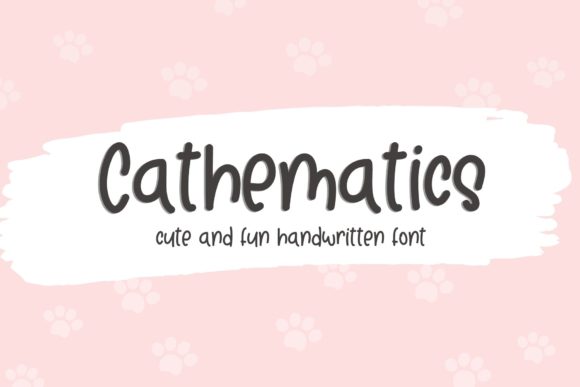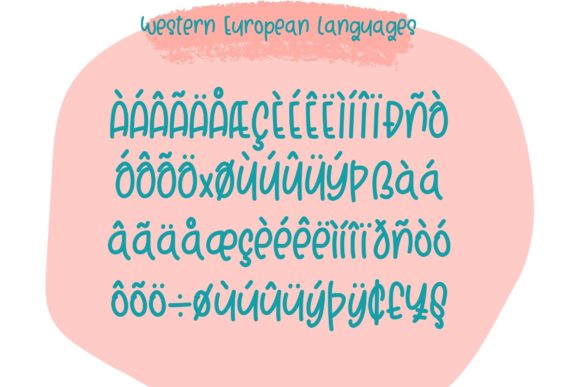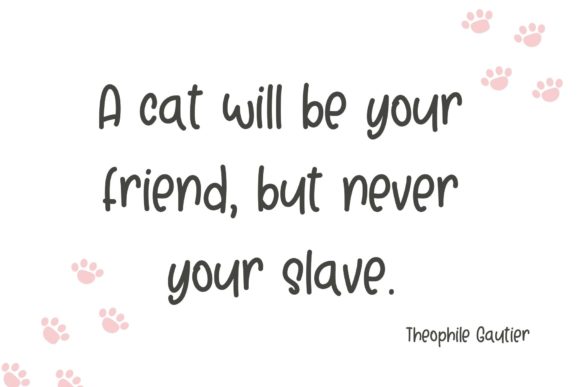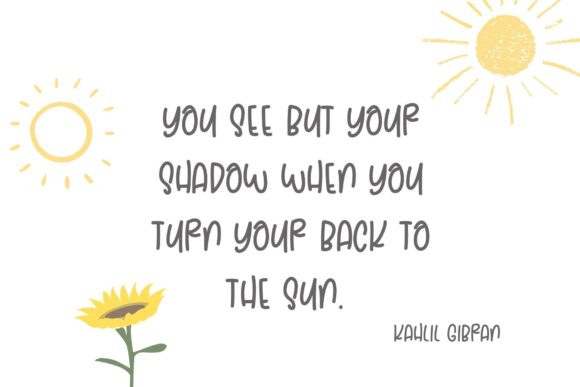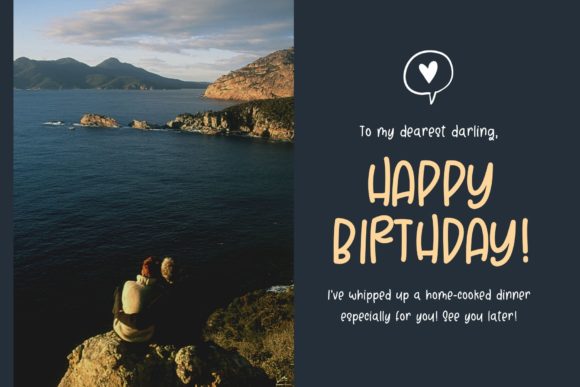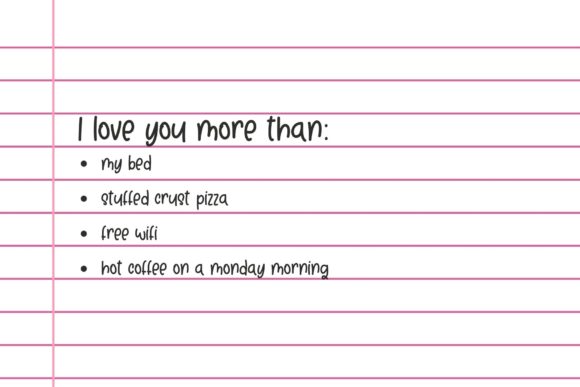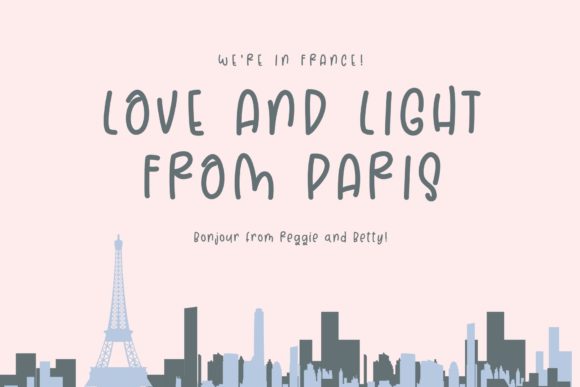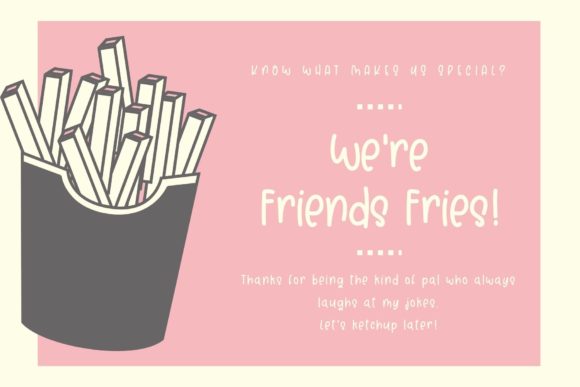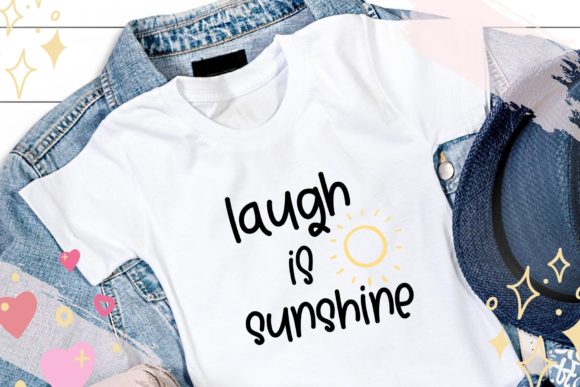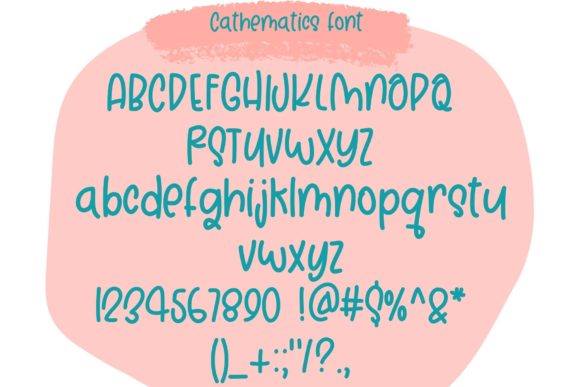
Cathematics Font
Introducing “Cathematics,” a cute and slightly quirky handwritten font that brings a delightful charm to any design project. With its versatility and unique appeal, “Cathematics” is the perfect choice to make your creative ideas stand out. Let’s explore the features that make “Cathematics” a dazzling font for all your design ventures:
Cute and Quirky: “Cathematics” exudes a playful and adorable vibe, making it a font that captures hearts and brings a smile to your audience’s faces. Its charming character adds a touch of whimsy to your text, making it perfect for lighthearted and fun projects.
Versatility: Whether you’re working on invitations, social media posts, greeting cards, quotes, or any other creative endeavor, “Cathematics” adapts effortlessly to various design themes and occasions. Its versatility allows you to use it for a wide array of projects.
Creative Standout: With “Cathematics,” your designs won’t go unnoticed. Its unique and eye-catching style makes your text pop and helps your artwork stand out from the crowd. Whether it’s on print or digital platforms, “Cathematics” ensures your creativity shines through.
Charming Handwritten Aesthetic: The hand-drawn quality of “Cathematics” adds an authentic and personal touch to your designs. Its playful imperfections give your text a warm and inviting feel, making it more relatable to your audience.
Youthful and Fun: “Cathematics” brings a youthful and energetic vibe to your designs, making it an excellent choice for projects aimed at a younger audience. Its fun-loving nature sparks joy and excitement in your artwork.
Readable and Accessible: Despite its quirky style, “Cathematics” maintains readability and clarity, ensuring that your message gets across effectively. Its legible letters and smooth lines make it easy for your audience to engage with your content.
Instant Appeal: “Cathematics” instantly captures attention with its cute and quirky charm. It leaves a memorable impression and draws people in, making it an ideal font for creating a lasting impact.
Enhance your creative projects with the enchanting and versatile “Cathematics” font. Whether you’re designing for personal or professional purposes, this font is sure to add a touch of cuteness and whimsy that brings your ideas to life. Let “Cathematics” be the go-to font that adds a bit of playfulness and creativity to every design, making it an absolute standout!